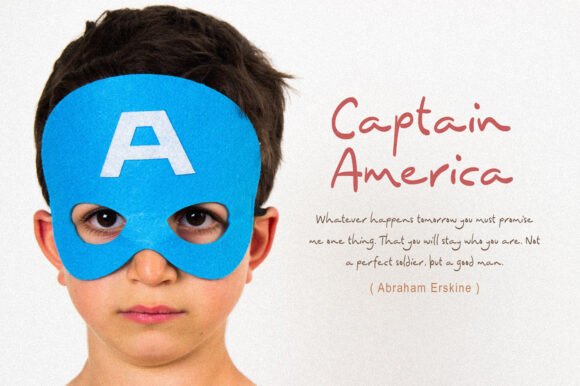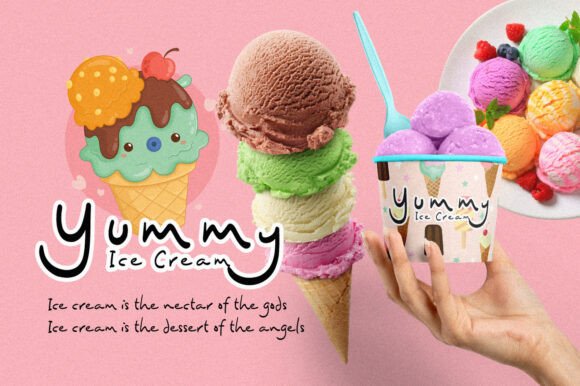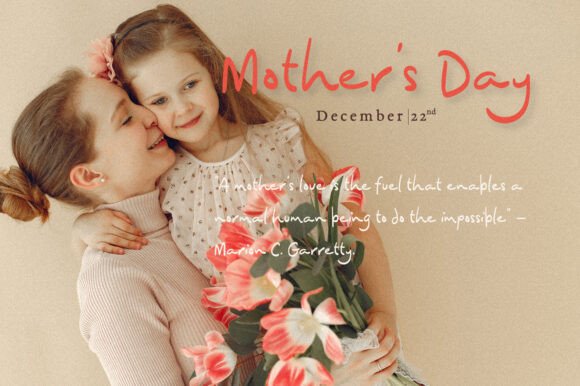
Introduction to Kingtom Font
Kingtom is a cute and casual handwritten font with an incredibly friendly feel.
This fantastic font is best suited for headlines of all sizes, as well as for blocks of text that have both maximum and minimum variations .
Key Features of Kingtom Font